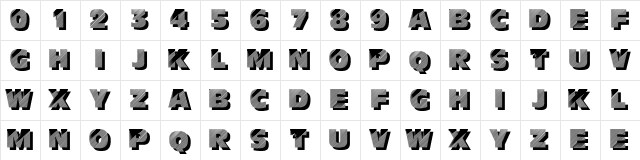
Anthracite Regular
| Designer | Fabrice Ducouret |
Design Context for Anthracite Typeface
Anthracite is a composed and adaptable typeface that performs quietly and consistently across a wide range of design contexts.